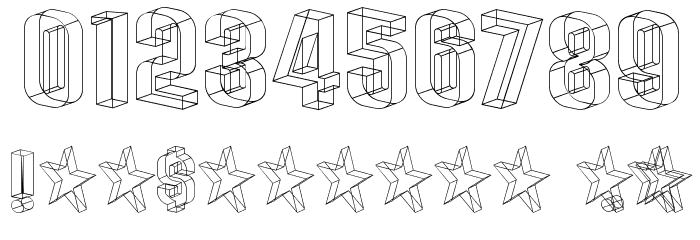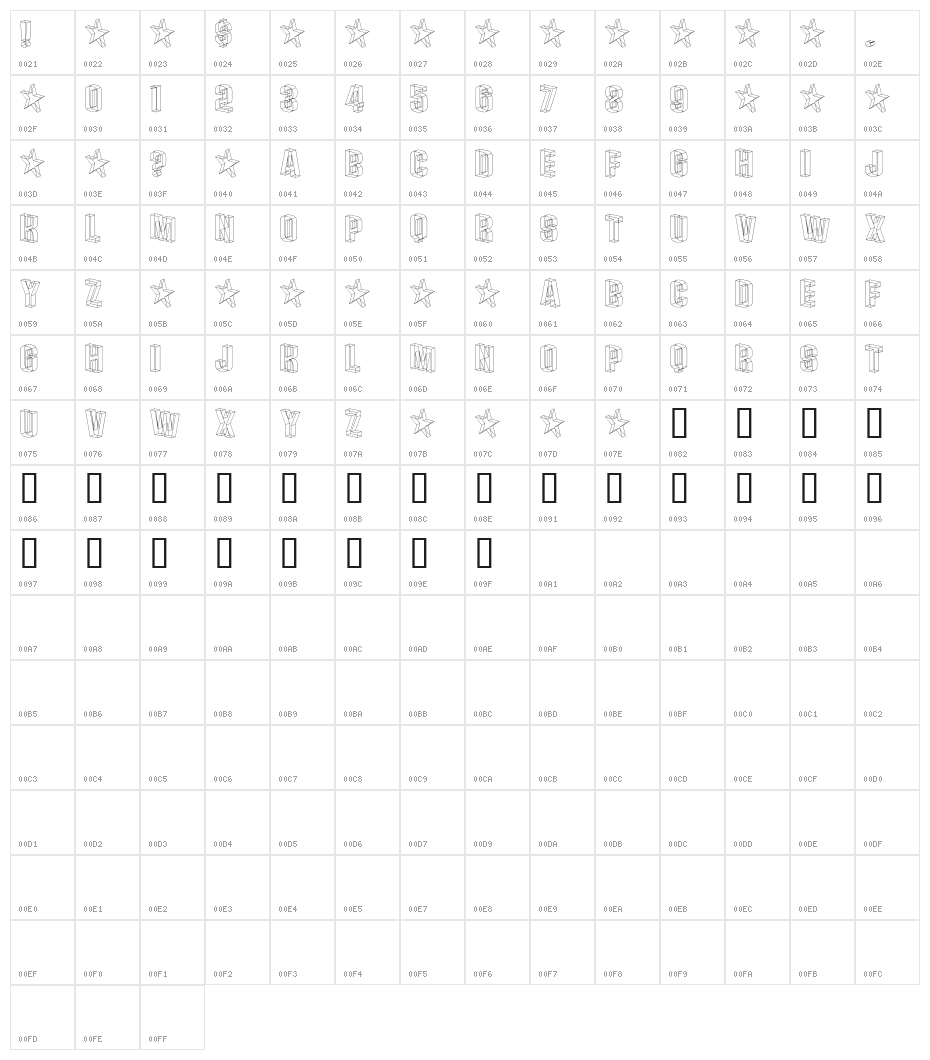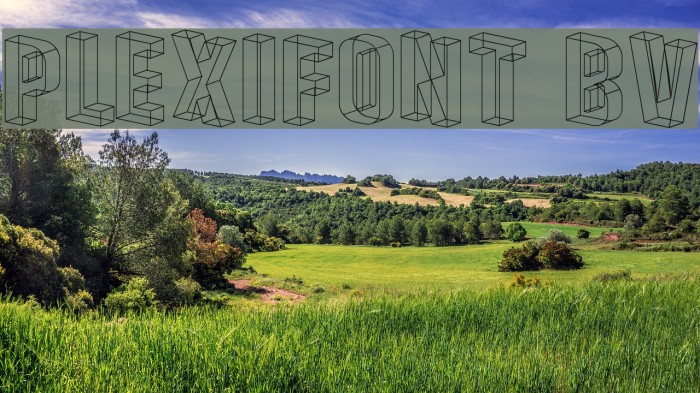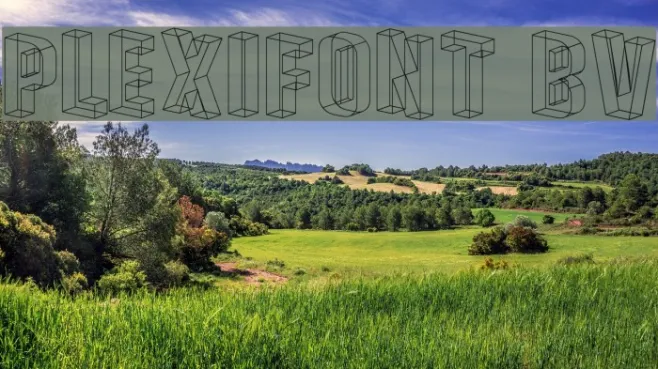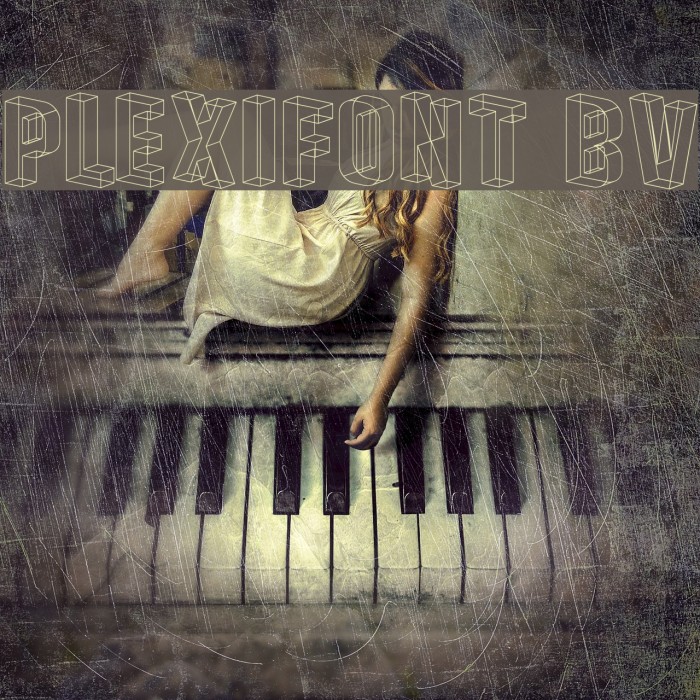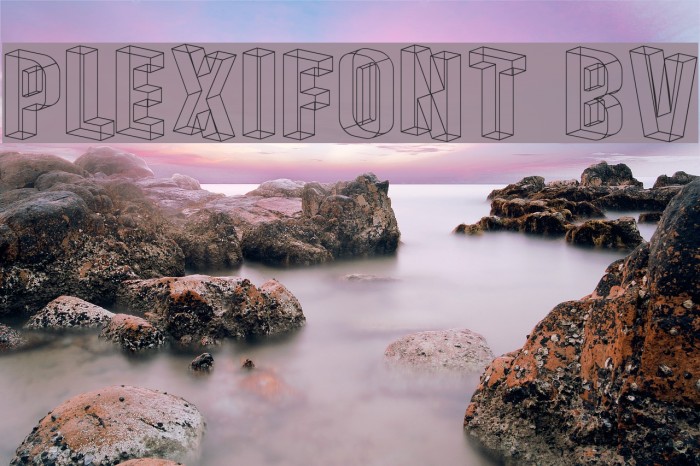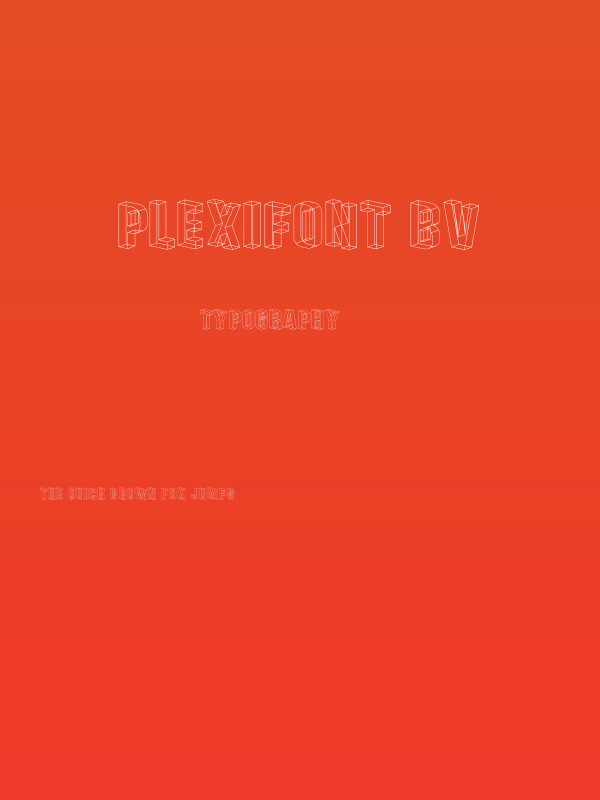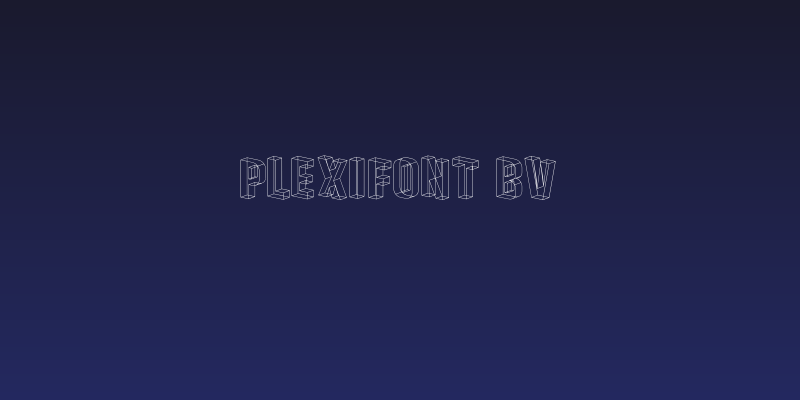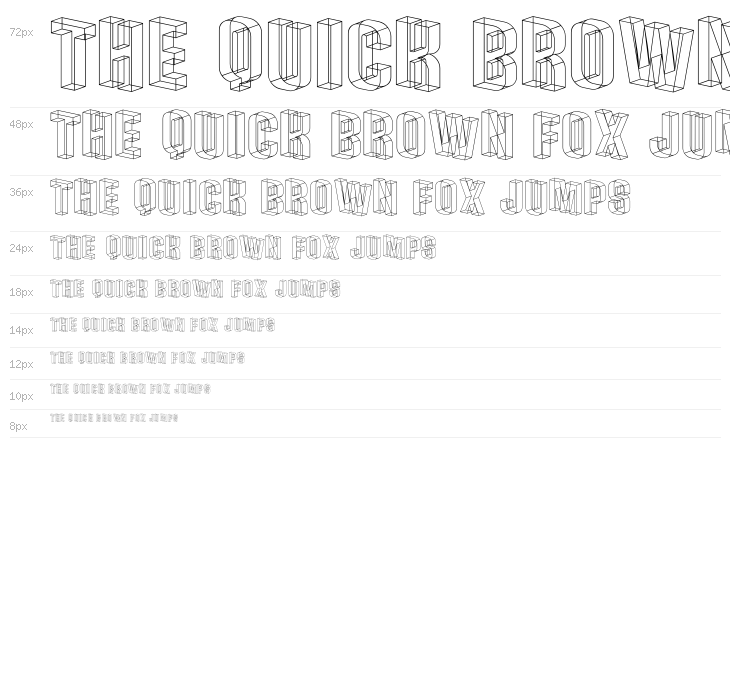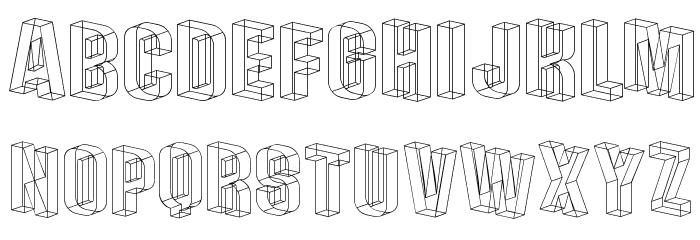
Plexifont BV Font
Plexifont BV Description
This font features a bold, three-dimensional geometric design with a wireframe appearance. Each character is constructed with clean, angular lines that create a sense of depth and structure. The uppercase and lowercase letters, as well as the numbers, maintain a consistent style, emphasizing the font's architectural aesthetic. The special characters, including symbols like the dollar sign and ampersand, are designed with the same meticulous attention to detail, making them visually cohesive with the rest of the set. This font's unique style is both modern and futuristic, suitable for projects that require a standout, eye-catching typeface.
| Proposed Projects | Ideal for branding, posters, video game graphics, and any design that requires a futuristic or tech-inspired look. |